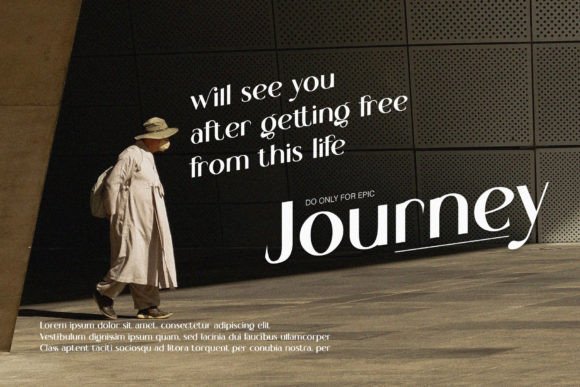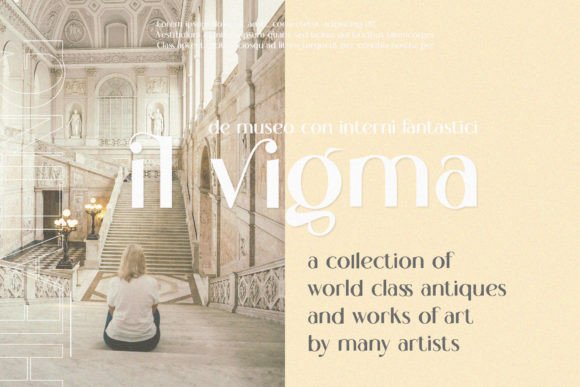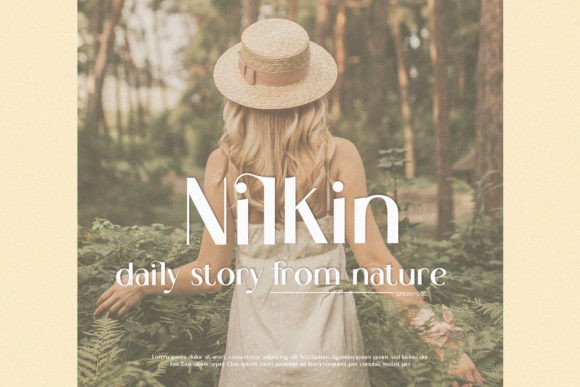
Introduction to Dilovi Font
Dilovi is a sans serif font with simple, clean, and visual elegance.
Specially designed for chic projects, perfectly suitable for creating stylish lifestyle designs such as logos, titles, and more Dilovi is PUA encoded which means you can access all the glyphs and ligatures with ease.
Dilovi Font offers exceptional quality and versatility, making it a valuable addition to your design toolkit. Whether you’re creating for personal projects or commercial use, Dilovi Font delivers professional results.